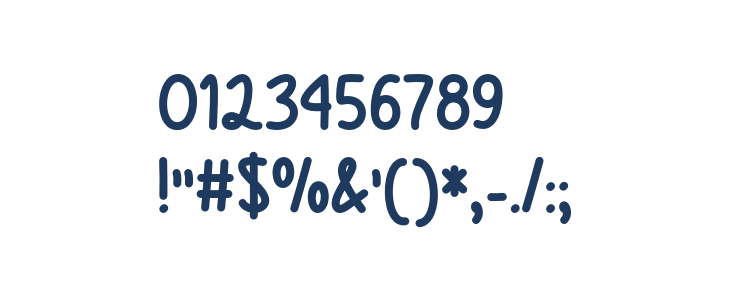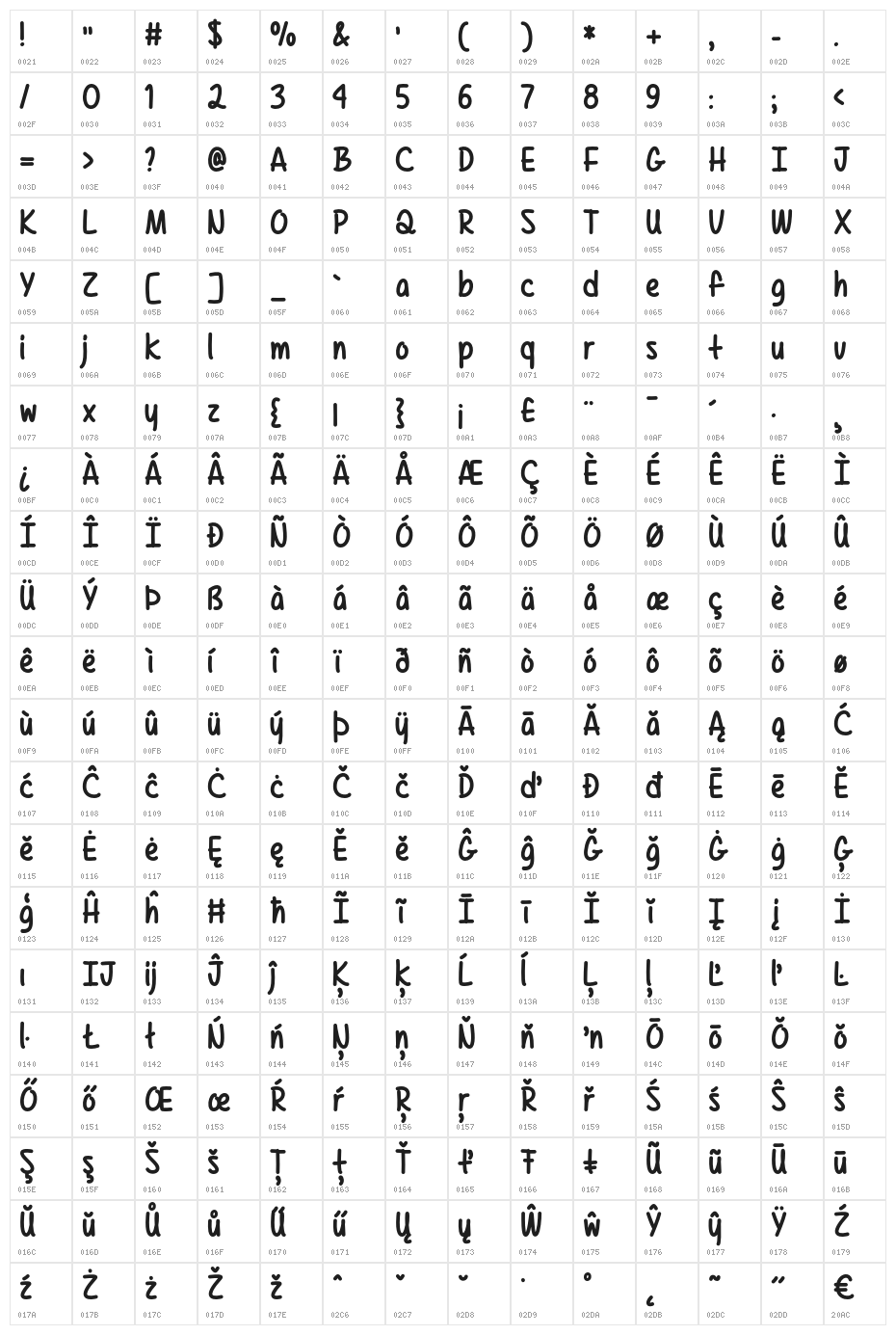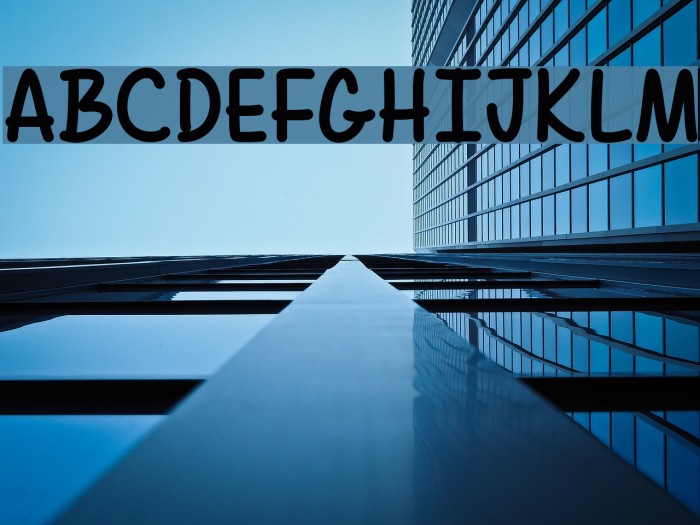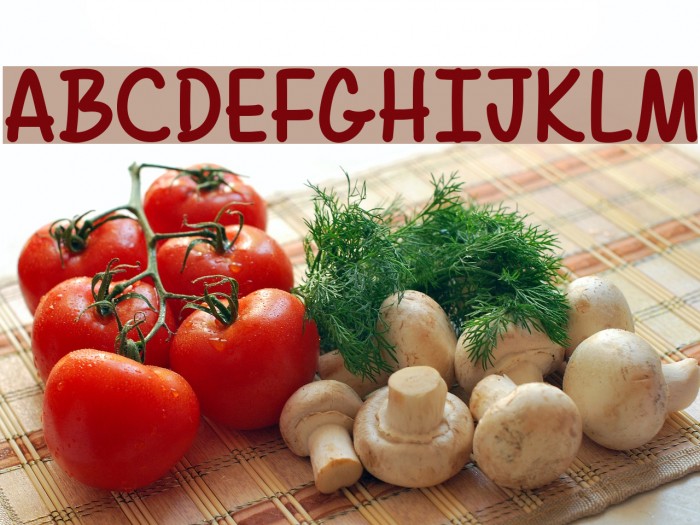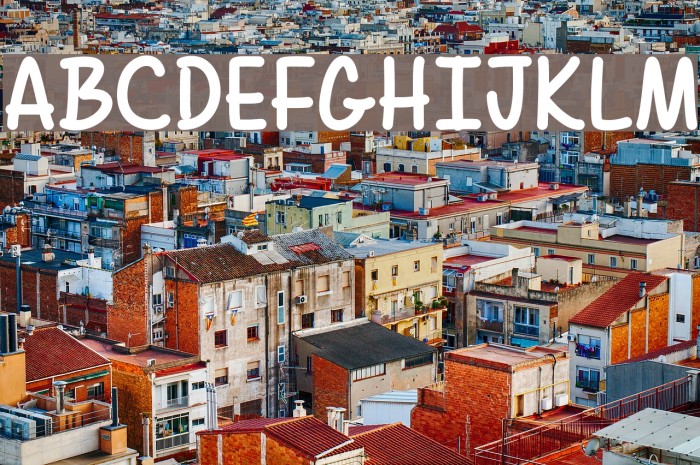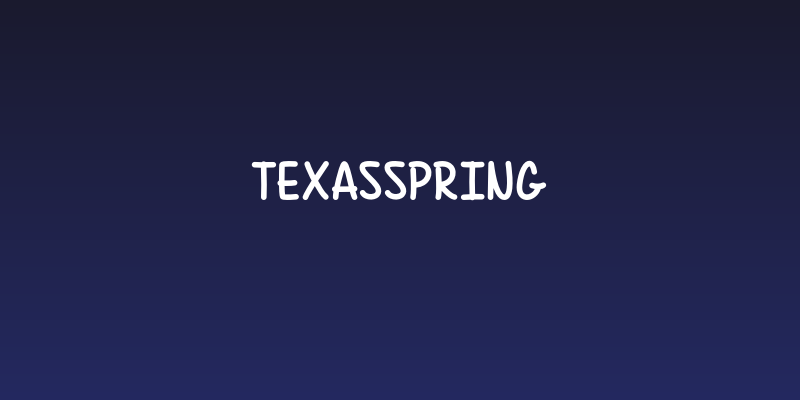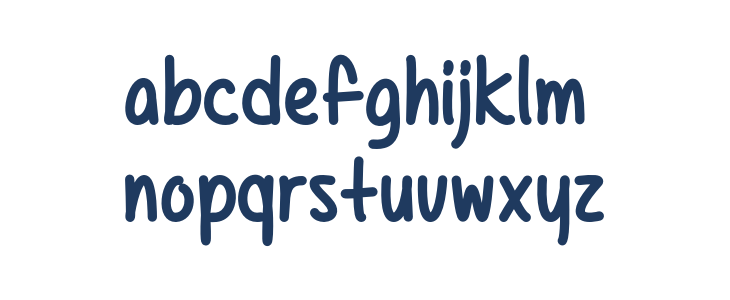
TexasSpring Font
TexasSpring Description
This font features a playful and casual handwritten style, characterized by its rounded and slightly irregular letterforms. The strokes are bold and consistent, giving it a friendly and approachable appearance. The uppercase and lowercase letters maintain a uniform height, contributing to its cohesive look. Numbers and special characters are designed with the same playful aesthetic, making the font versatile for various uses. Its informal style is perfect for projects that require a personal touch or a sense of whimsy.
| Overall Style | Casual |
| Use Case | Headlines, Logos, Informal Text |
| Proposed Projects | Ideal for greeting cards, children's books, playful branding, and social media graphics. |